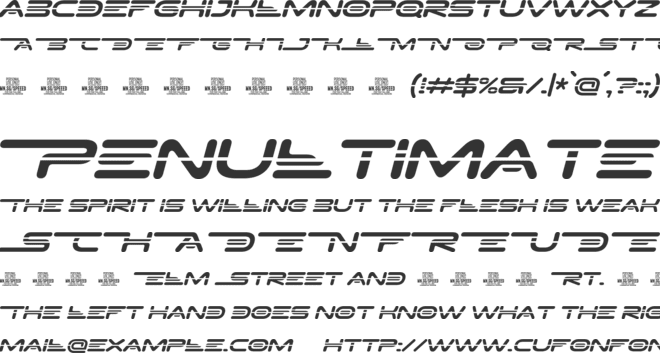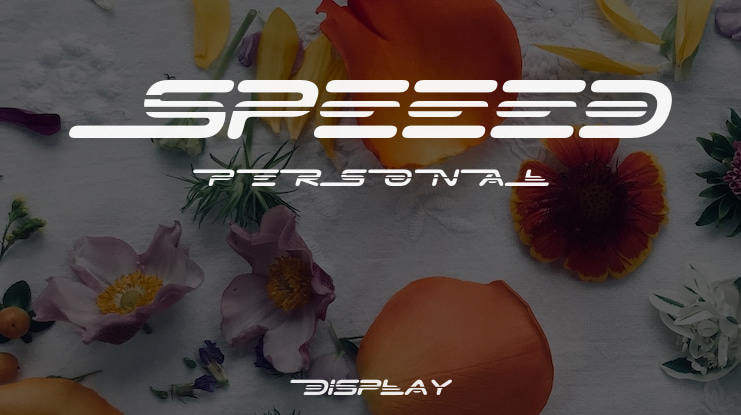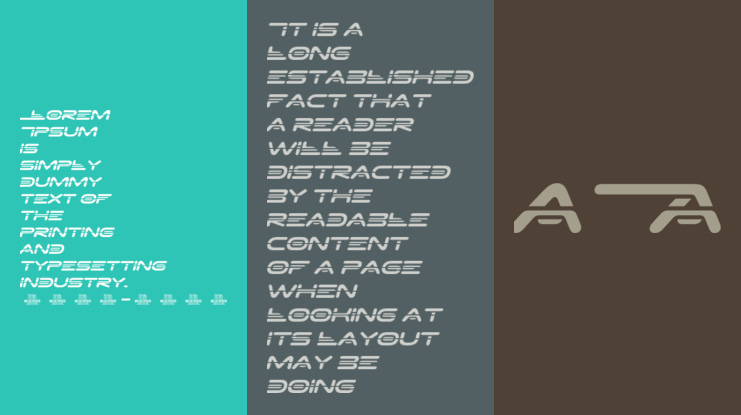
Speeed PERSONAL Font
NOTE: This font is for PERSONAL USE ONLY!To purchase a commercial license, visit:https://www.mansgreback.com/product/speeedSpeeed is a racing-inspired font, built with bold shapes and a feeling of acceleration. The lettering has a modern feel, a bit futuristic, with a speedy vibe that makes it feel fast even when standing still.For questions, please visit https://mansgreback.com/faq